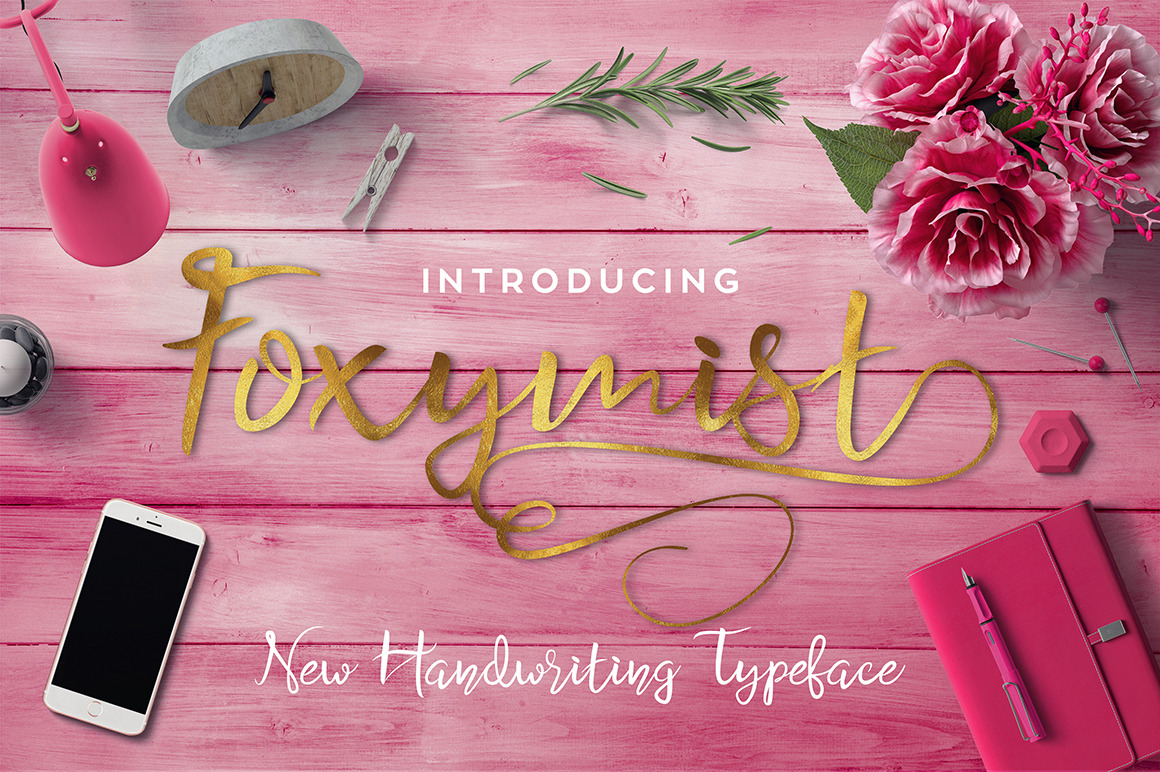
Foxymist Typeface
Foxymist is a modern handwritten script typeface. Highly suitable for all your design projects especially those related to artistic beauty!
Uppercase, Lowercase, Numerals, Punctuation, Ligatures & Stylistic Alternates.